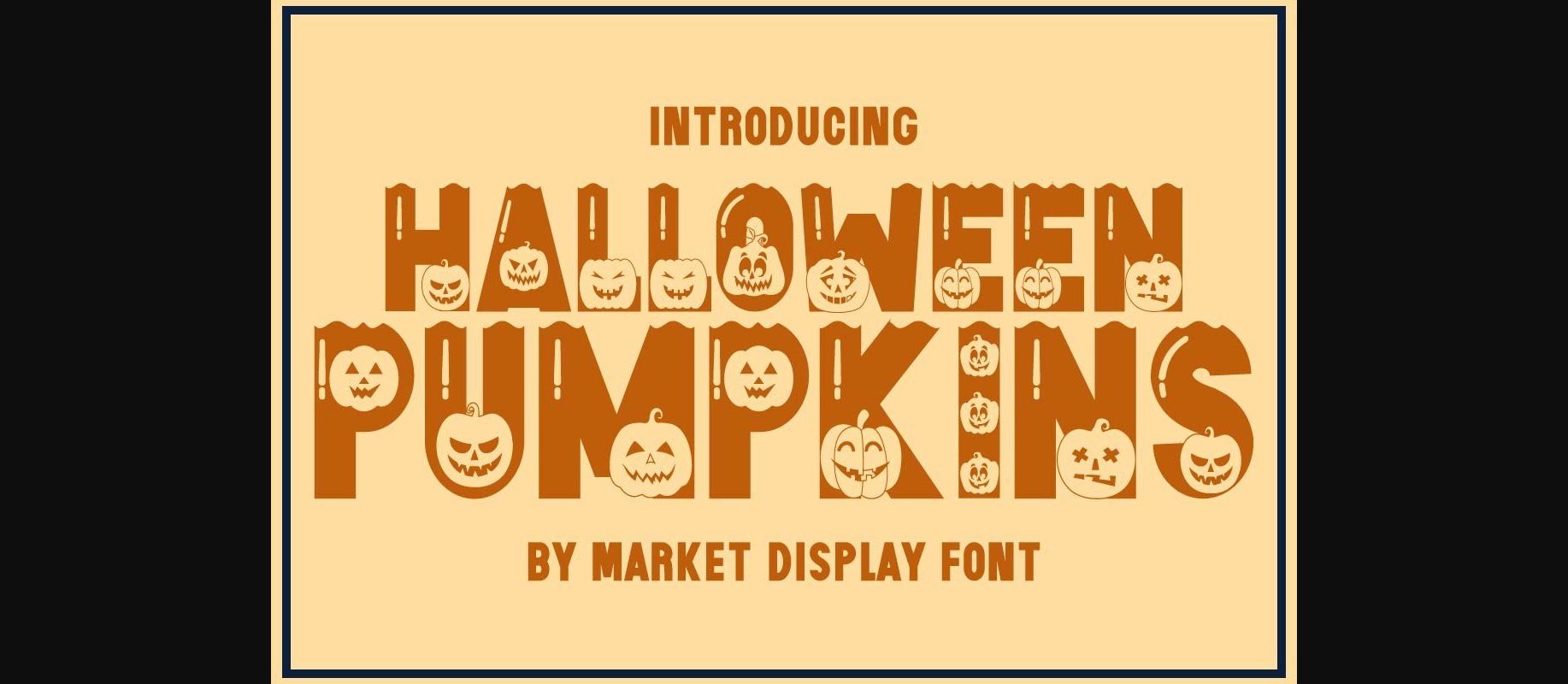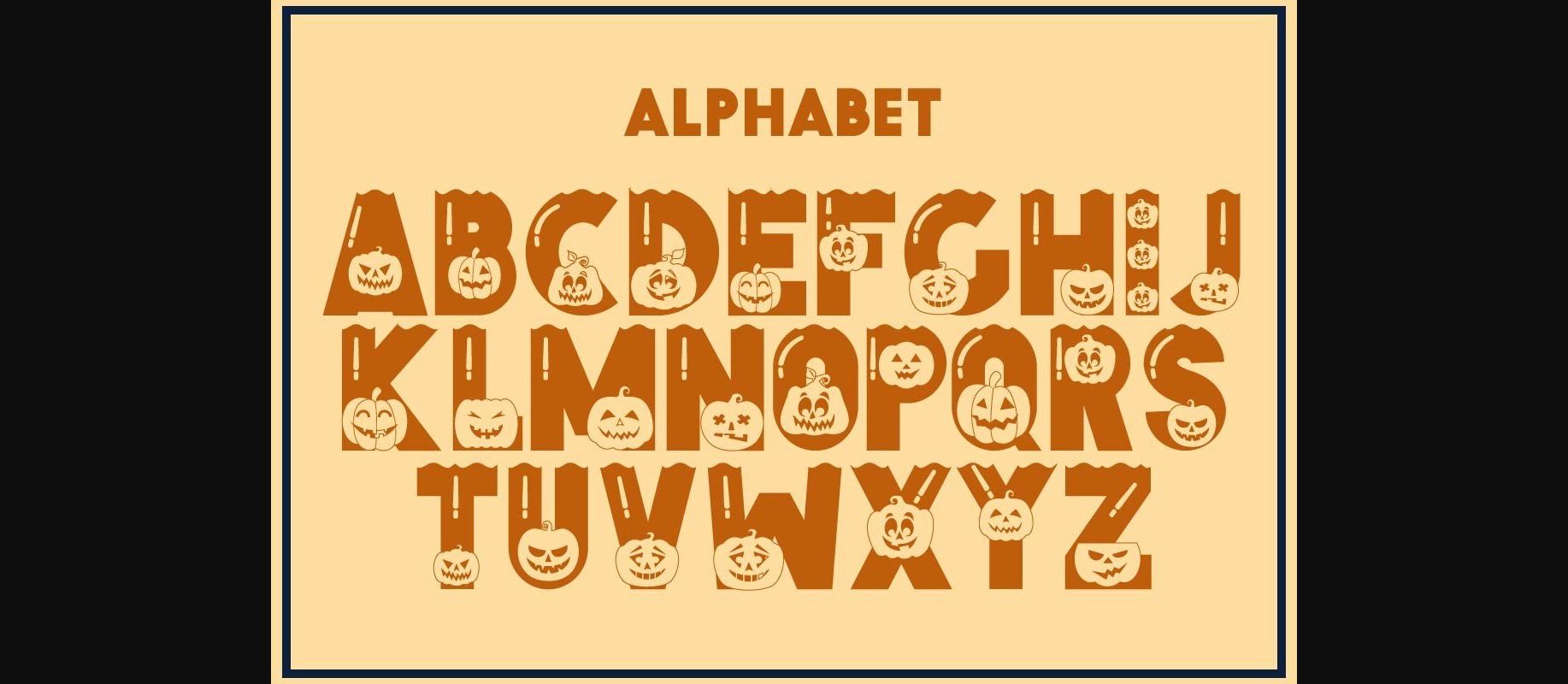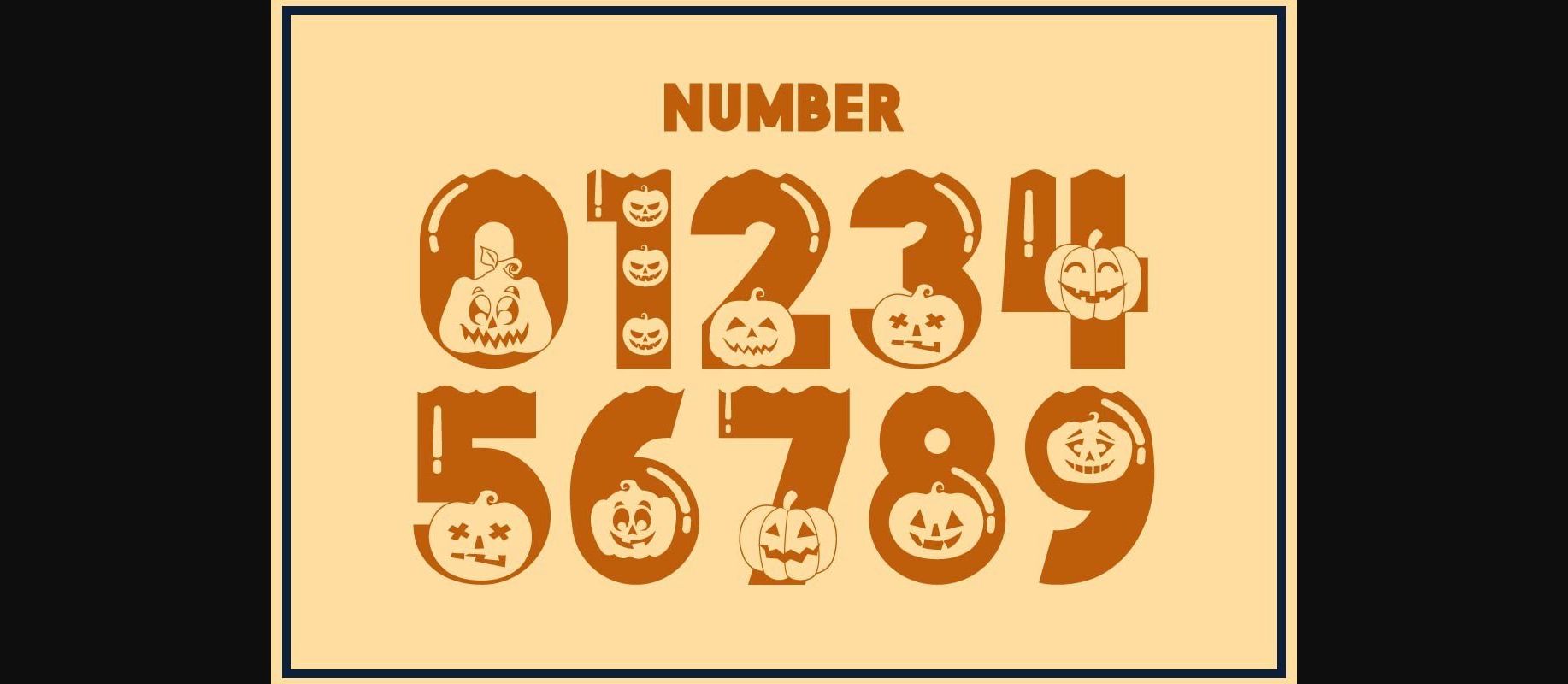
Halloween Pumpkins Font
About Halloween Pumpkins Font
Halloween Pumpkins is a fun and incredibly cute decorative font. It can be used for various design ideas, particularly those related to the Fall season.